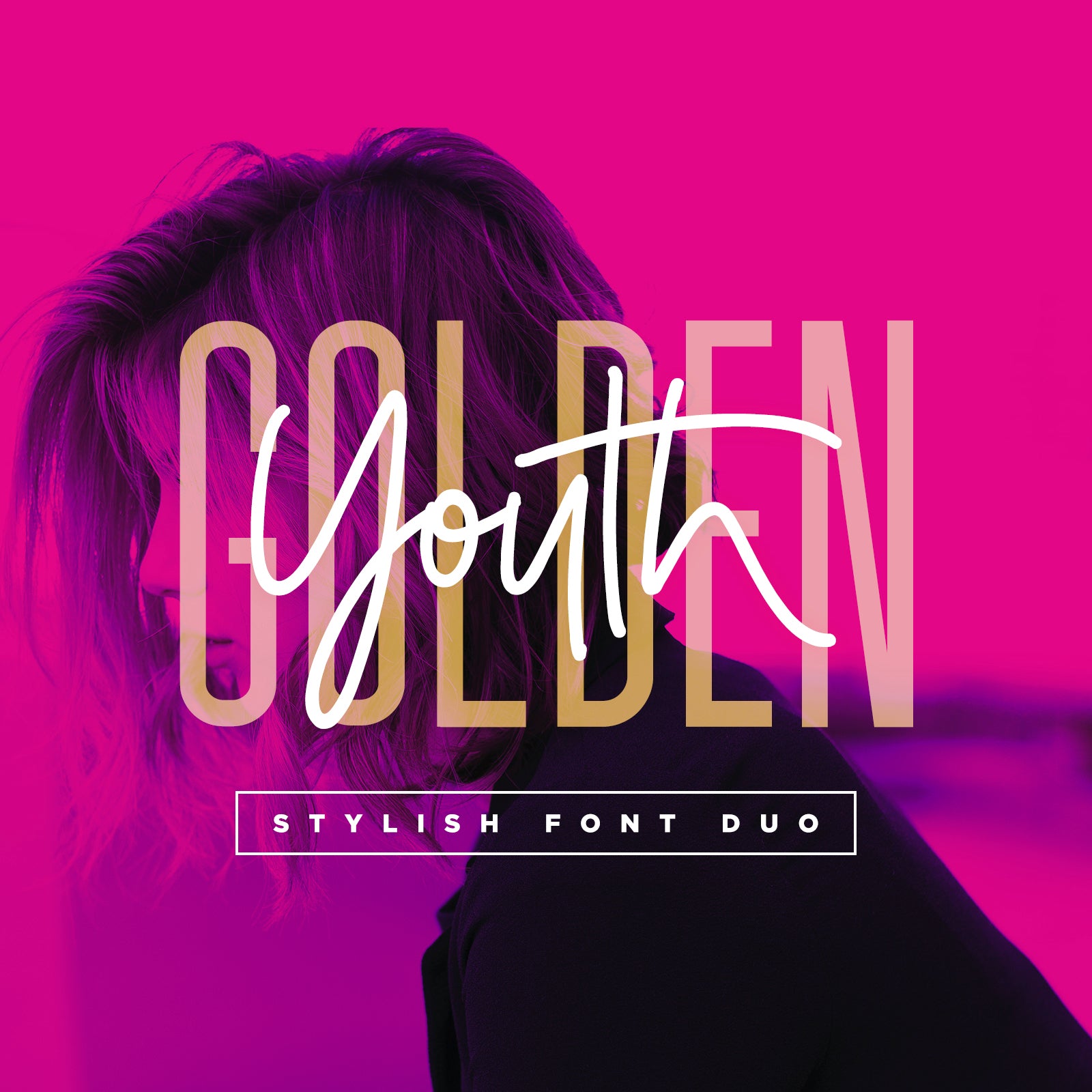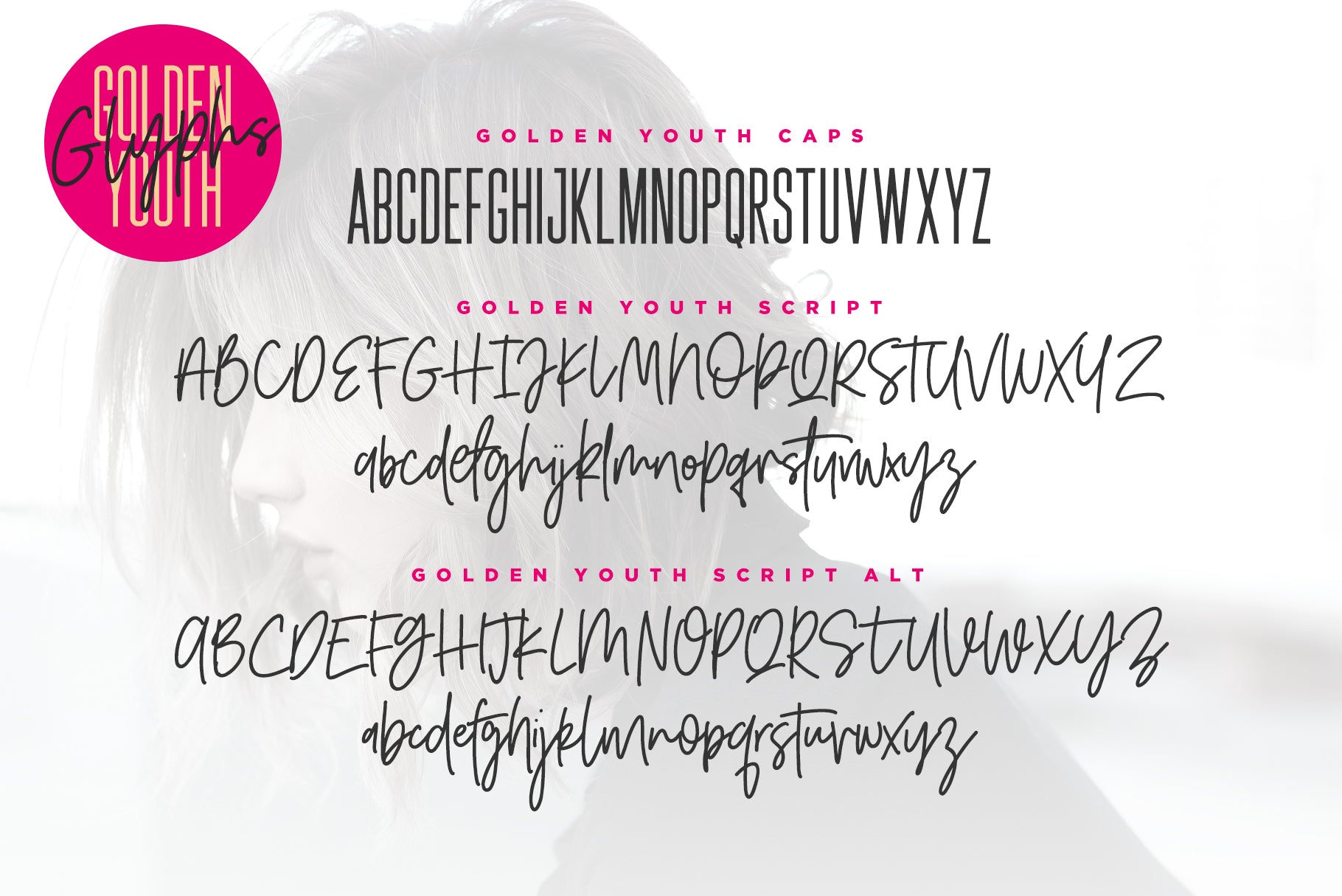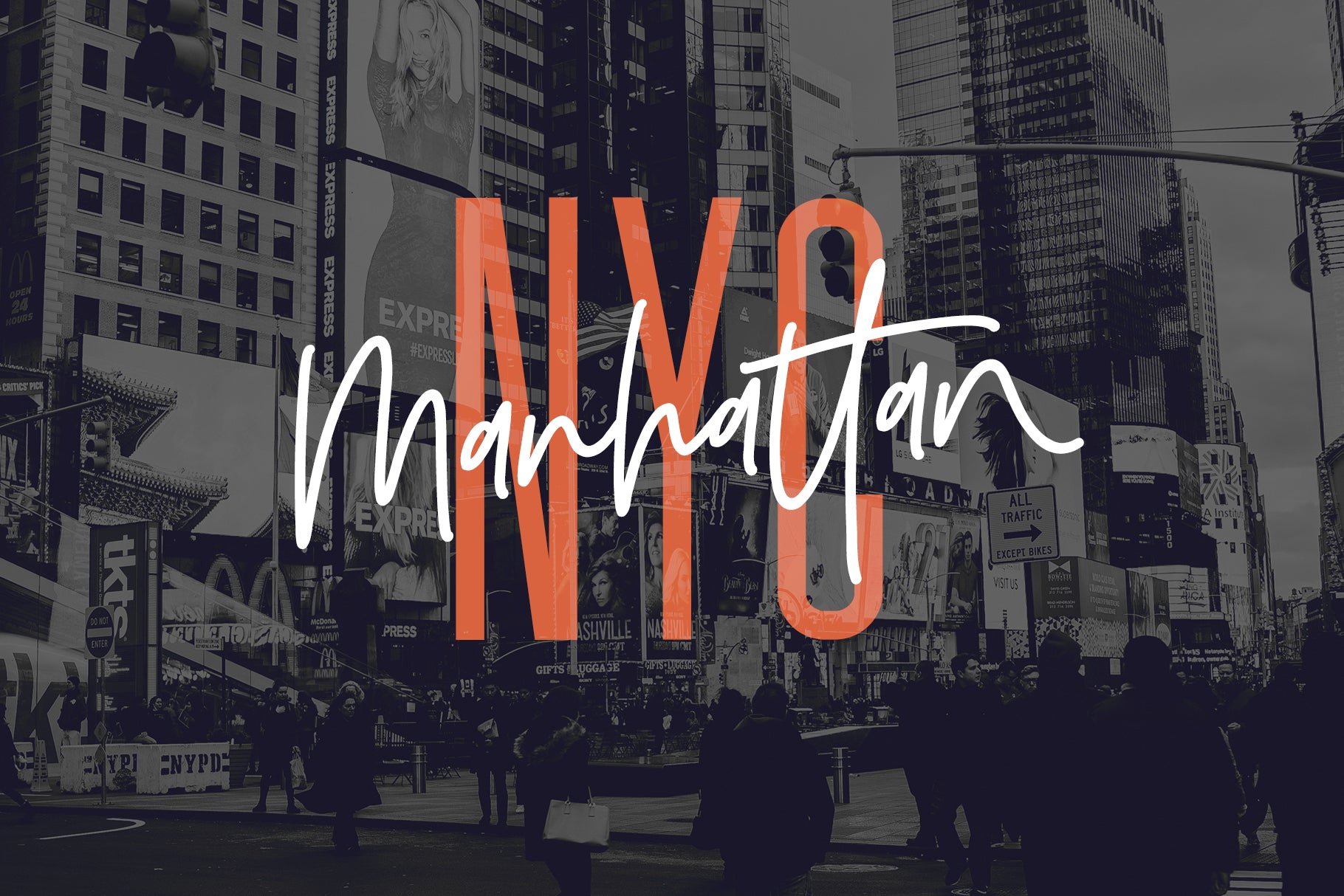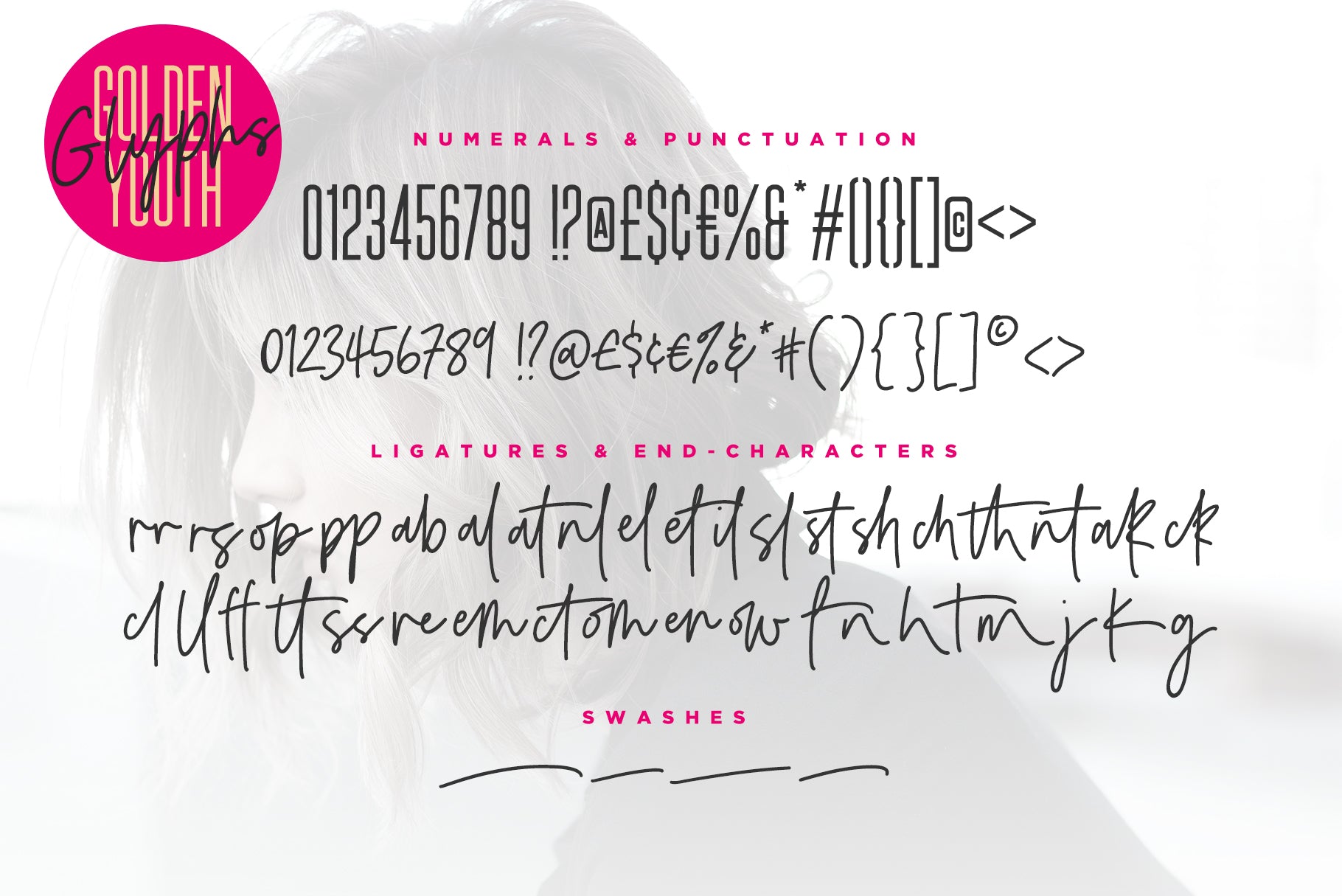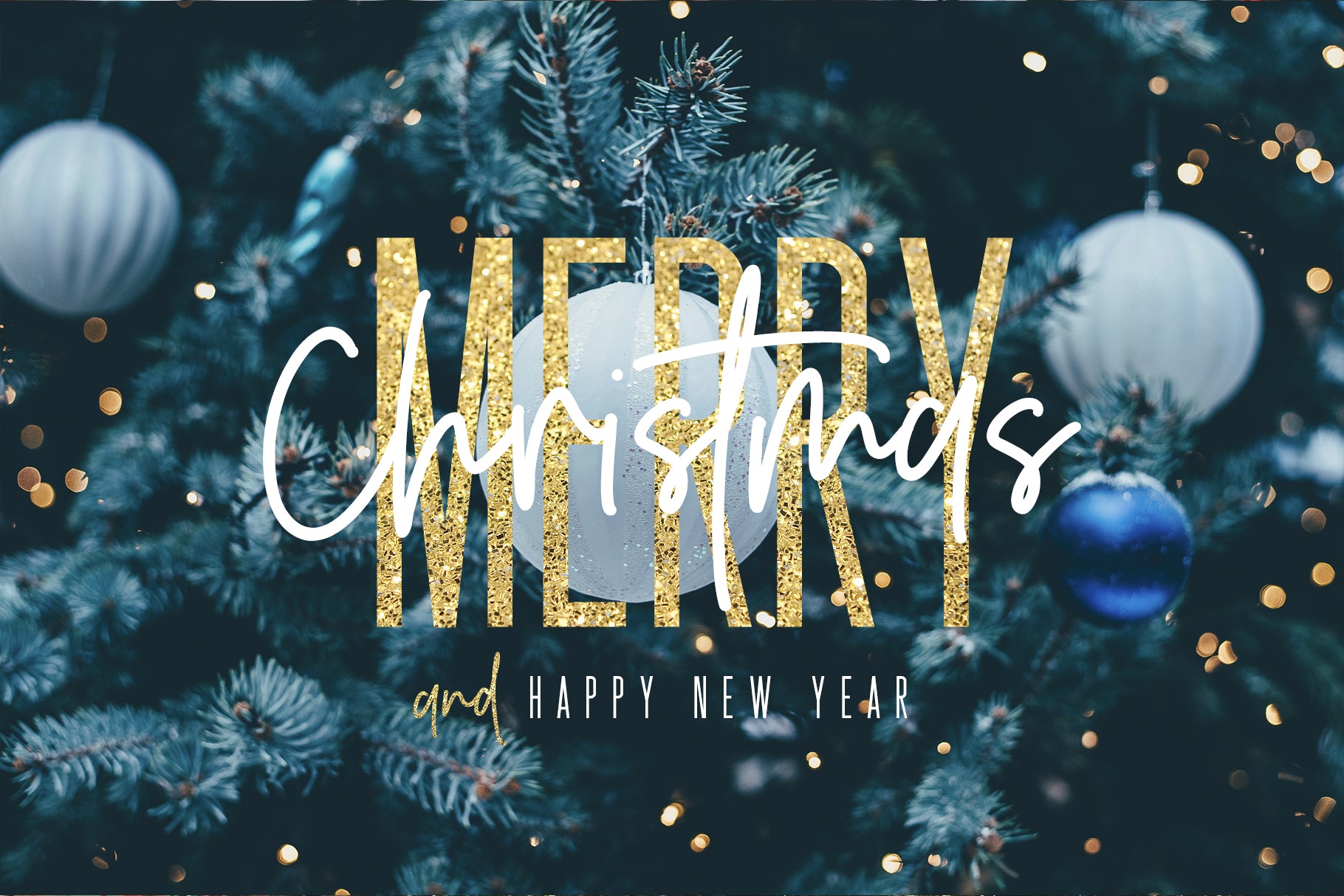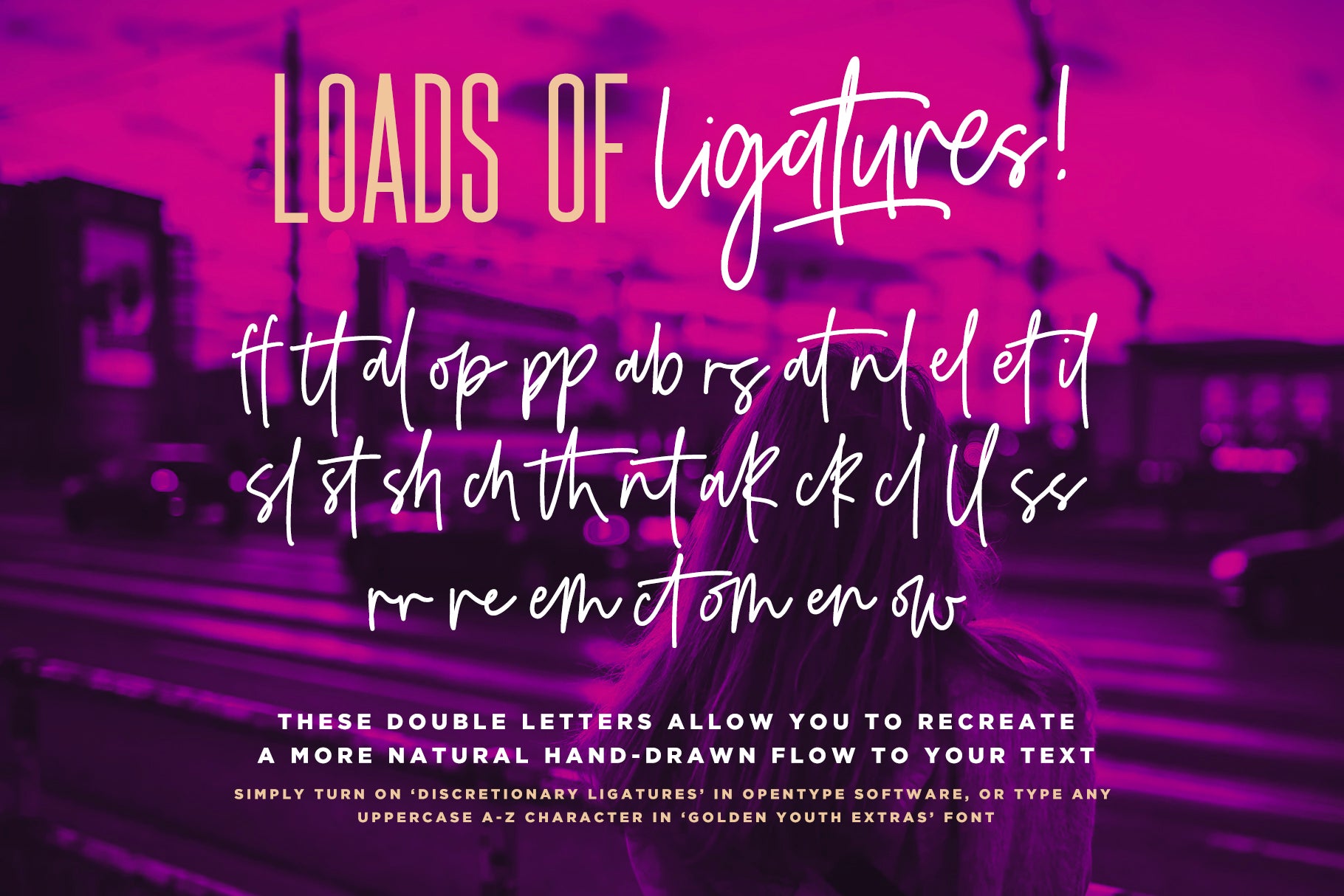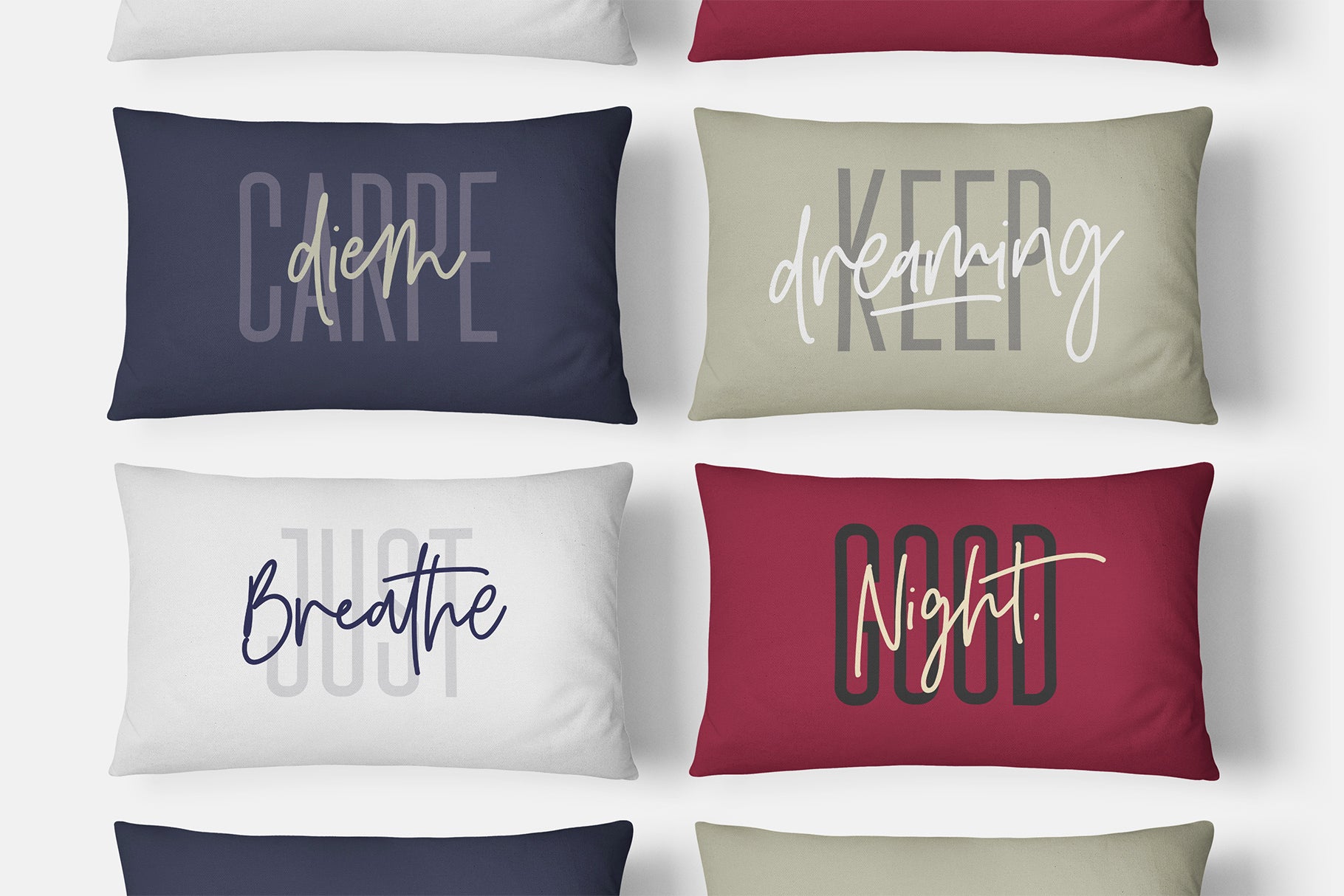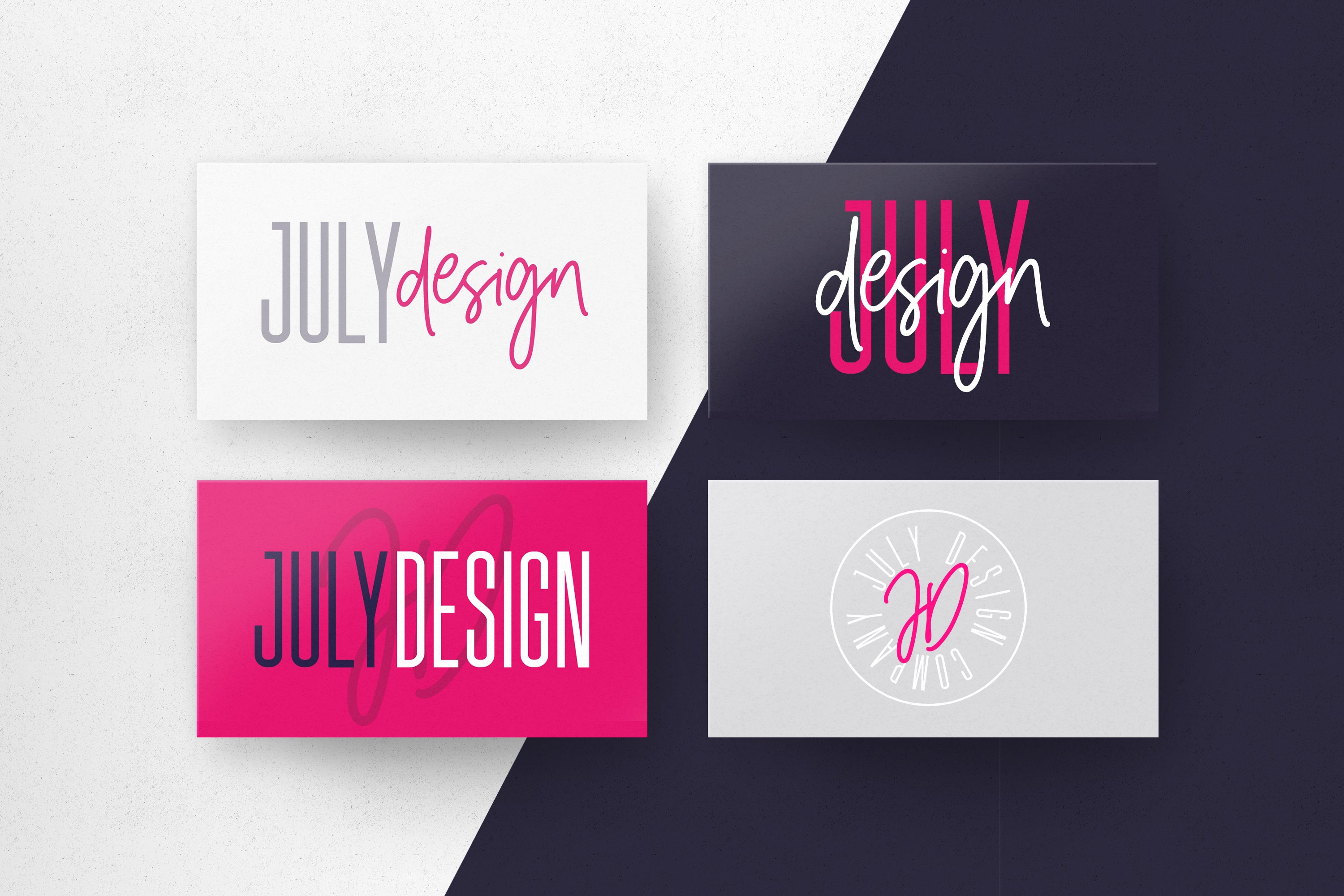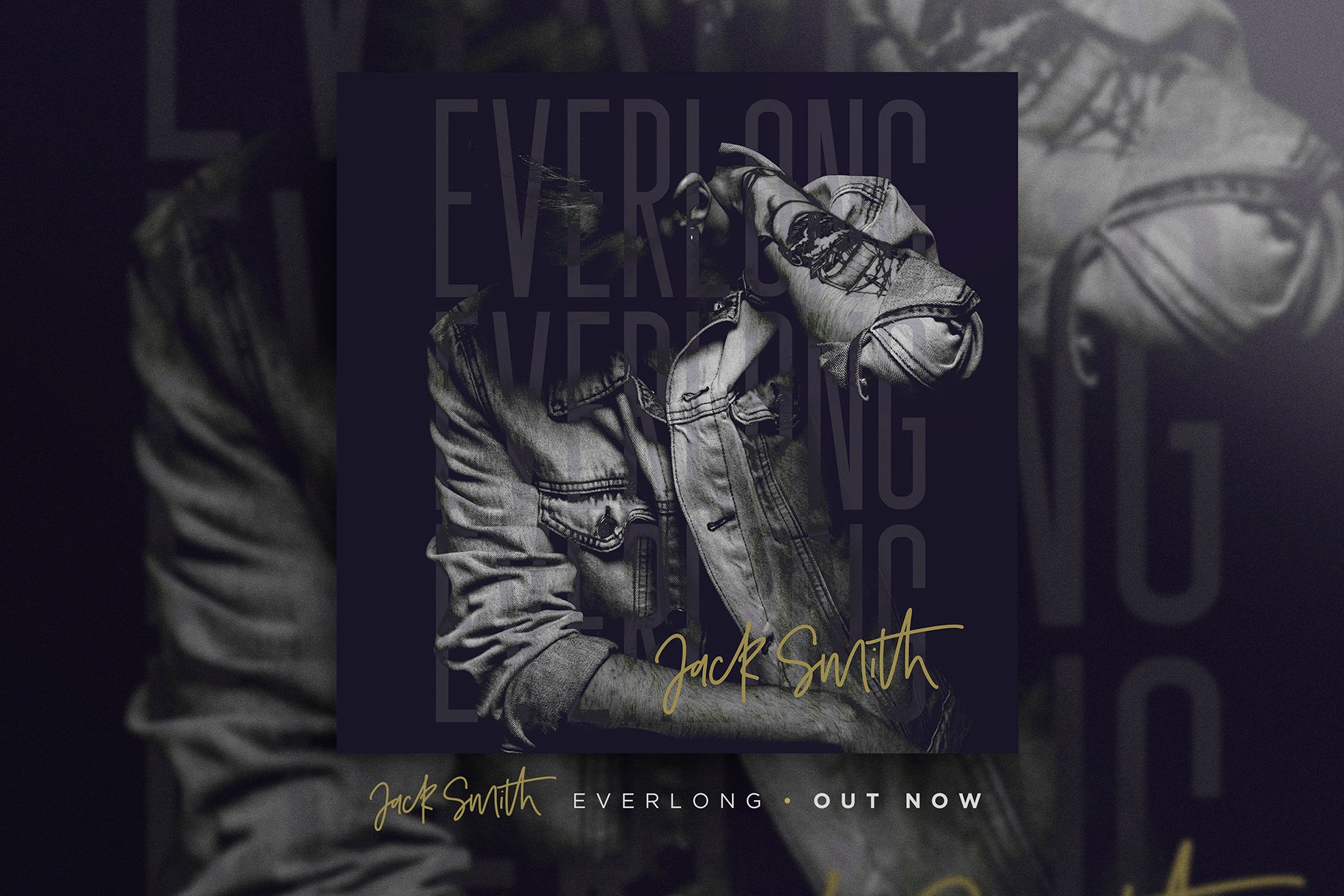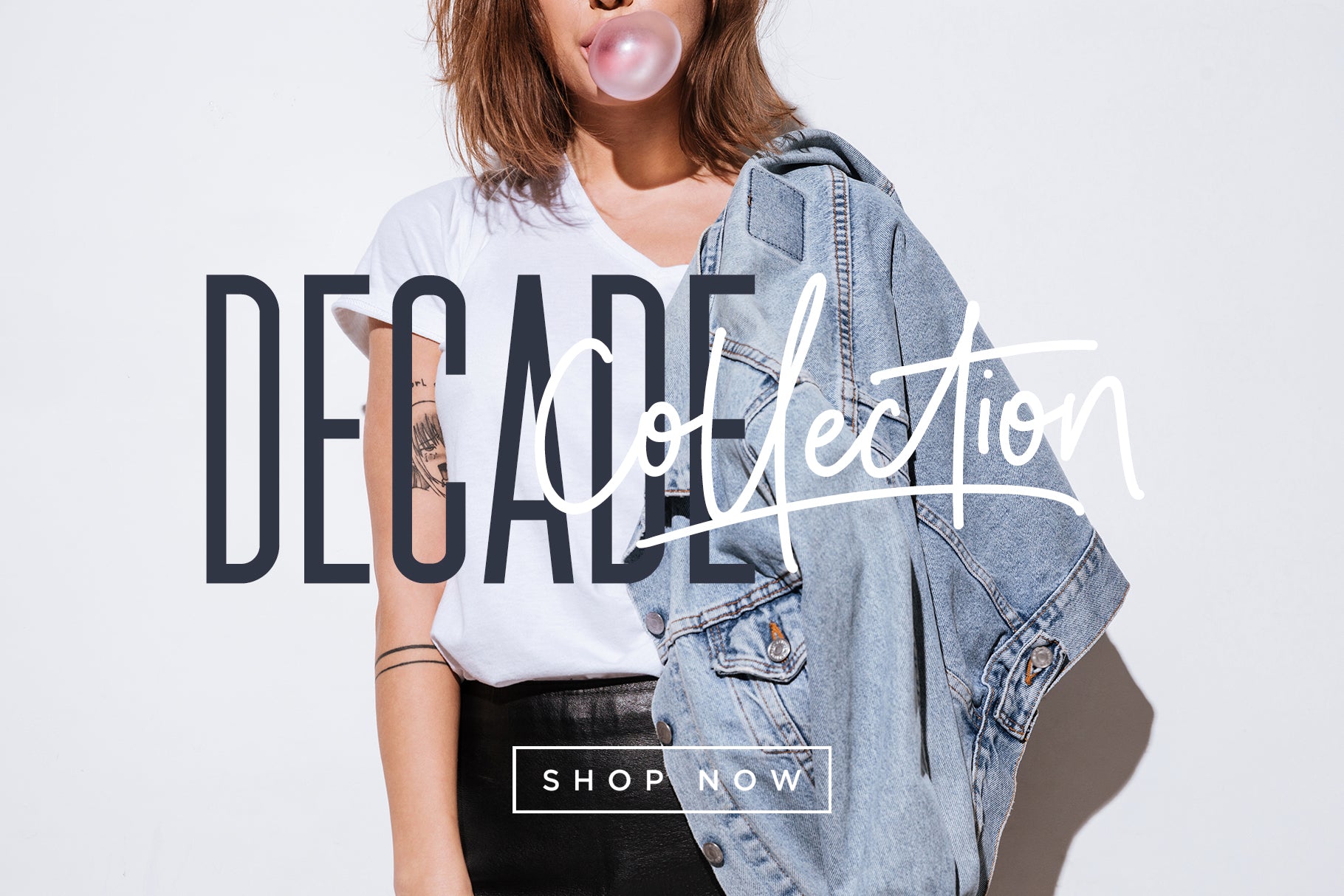
Golden Youth Font Duo
The Golden Youth Font Duo includes four font files: a tall condensed sans-serif font (Golden Youth Caps), a clean monoline script font (Golden Youth Script), an alternative version of the script font (Golden Youth Alt), and a ligature font (Golden Youth Extras). This versatile duo offers multilingual support and is designed for a range of design applications.